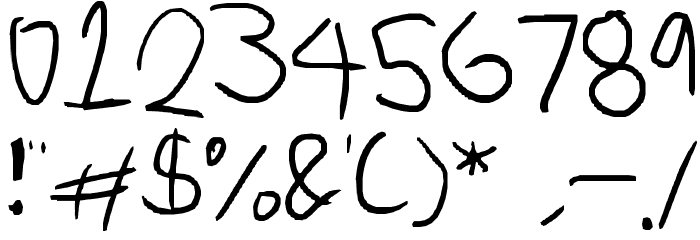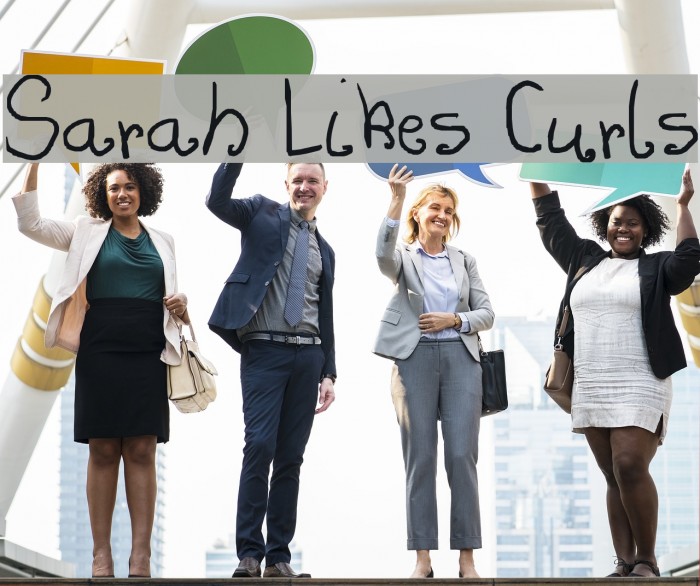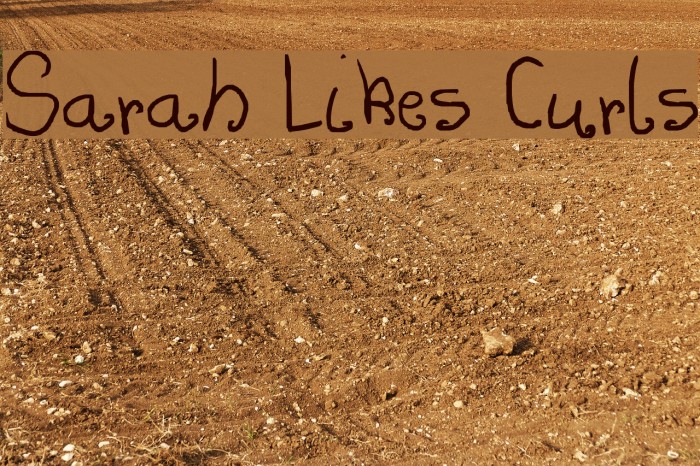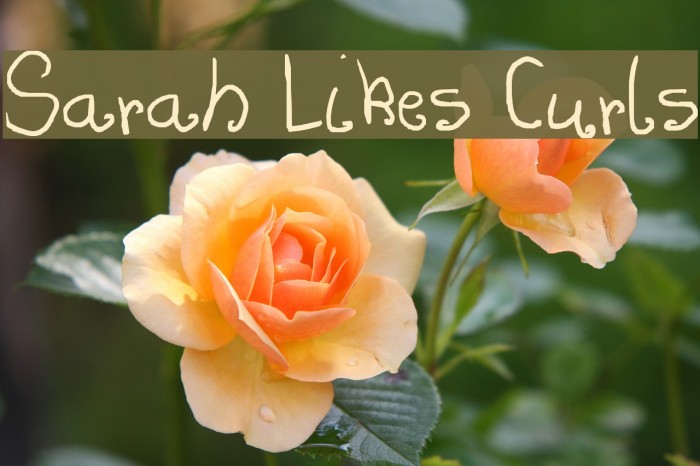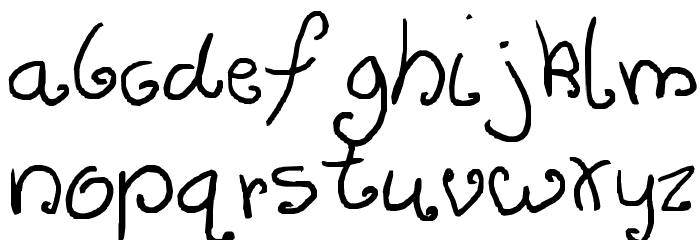
Sarah Likes Curls Font
This playful and whimsical font features a handwritten style with a casual and friendly appearance. The characters are slightly irregular, adding a personal touch to the text. The uppercase letters are bold and prominent, while the lowercase letters maintain a consistent flow with occasional curls and loops that enhance its charm. The numbers are clear and easy to read, with a similar playful style. Special characters are creatively designed, fitting seamlessly with the overall aesthetic. This font exudes a sense of fun and creativity, making it ideal for projects that require a personal and informal touch.
A playful, handwritten font with a whimsical and friendly style.
• Proposed Projects: Ideal for greeting cards, children's books, playful branding, and casual invitations.
• Category: Handwritten
• Overall Style: Playful
• Use Case: Headlines, Informal text, Creative projects